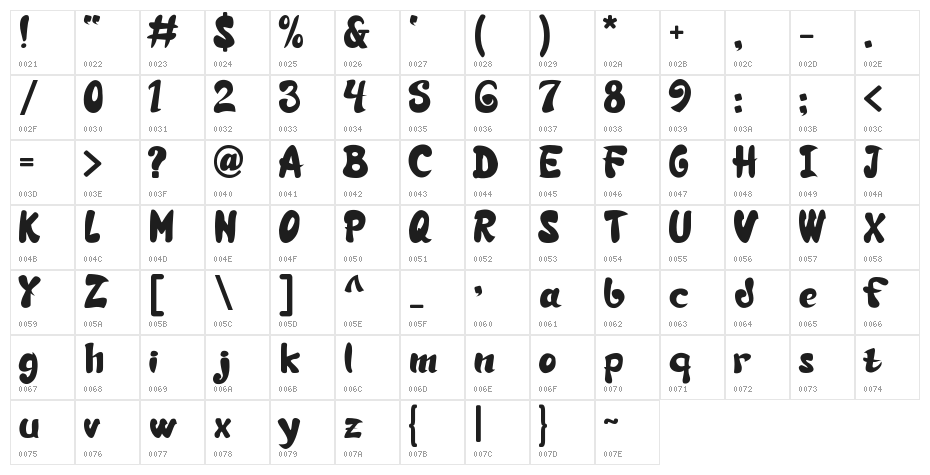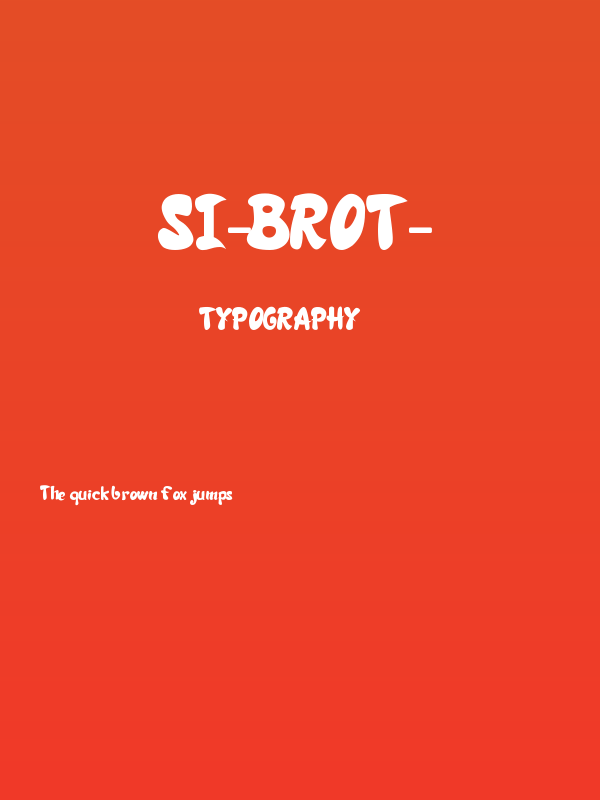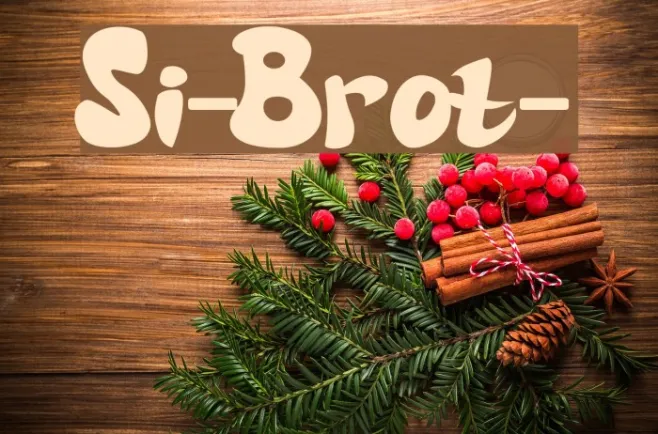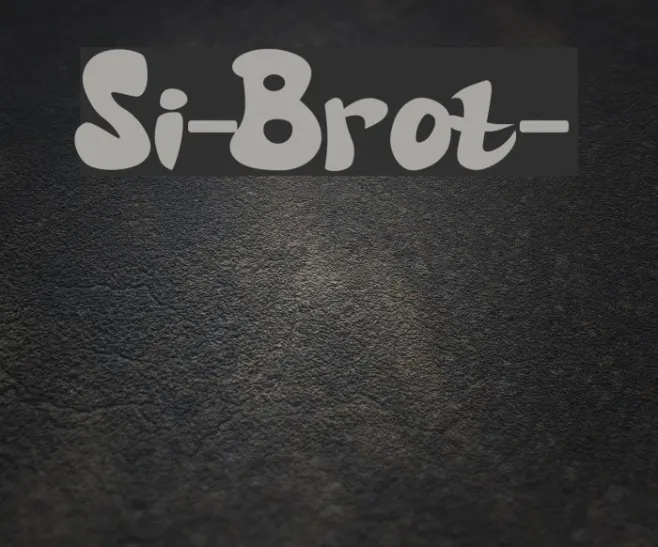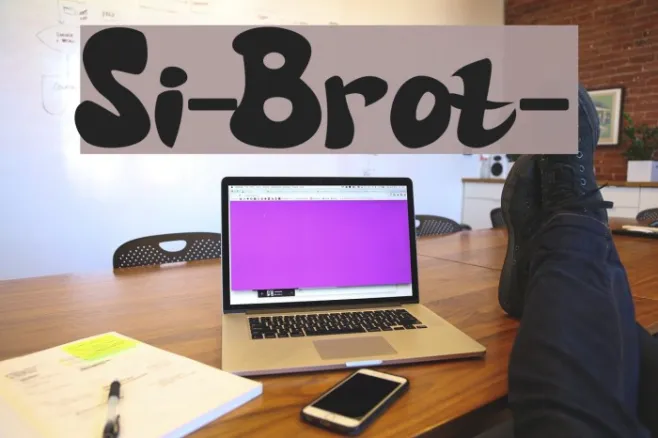
Si-Brot- Font
Si-Brot- Description
This font features a bold and playful design with thick, rounded strokes that give it a lively and energetic appearance. The characters are highly stylized, with a hand-drawn feel that adds a touch of whimsy. The uppercase and lowercase letters maintain a consistent style, with exaggerated curves and a slightly irregular baseline that enhances its informal charm. The numerals and special characters are equally bold and expressive, making them stand out in any design. This font is perfect for projects that require a fun and approachable aesthetic.
| Proposed Projects | Ideal for children's books, playful branding, posters, and creative invitations. |